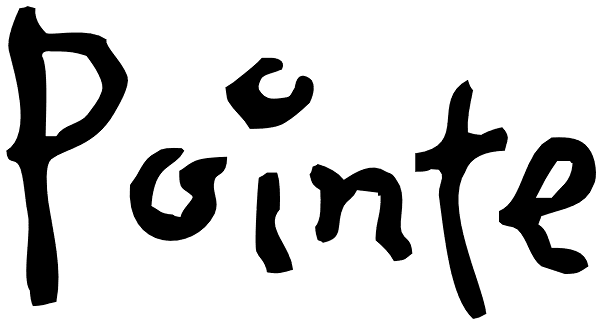
Pointe
It is the point that creates the expression from the writer via the pen unto the paper. The artist guides the point in unique ways to not only communicate, but also to make the resulting expression unique. The point can take the form of a quill or a...